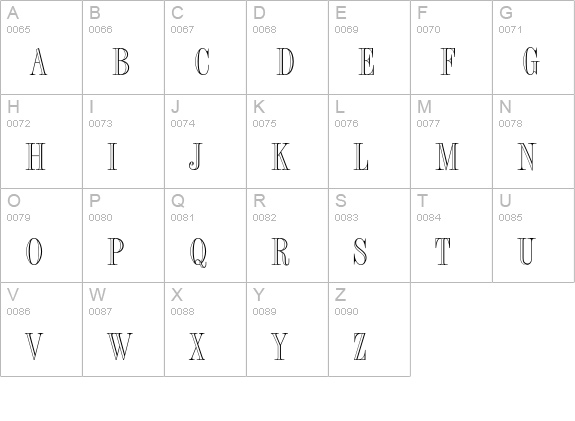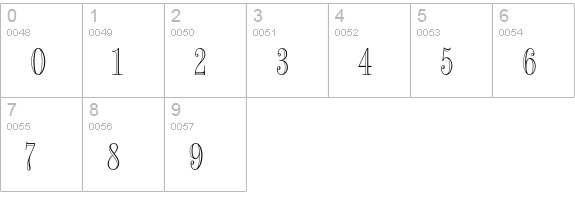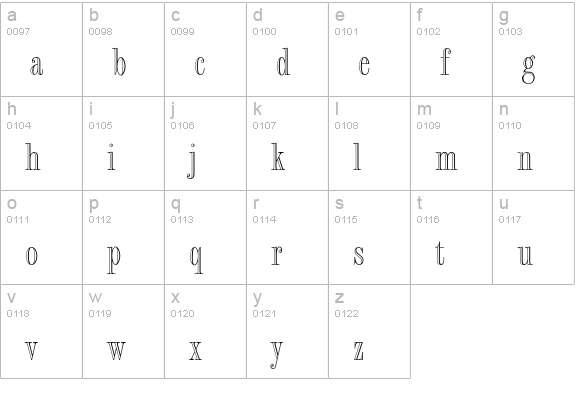
Fashion Engraved Std Font Details
Fashion Engraved Std font is a stunning display typeface that exudes elegance and sophistication. Its intricate, engraved design adds a touch of luxury to any project. The sharp lines and intricate details of this font make it perfect for fashion-related designs, luxury branding, and editorial layouts. What sets Fashion Engraved Std font apart is not only its stylish appearance but also the fact that it is available for free download at FontsMarket.com. This means that you can easily enhance your designs with this beautiful font without having to spend a penny. Whether you're working on a fashion magazine, a high-end brand identity, or a glamorous event invitation, Fashion Engraved Std font is sure to make a statement. Download Fashion Engraved Std font for free today at FontsMarket.com and add a touch of sophistication to your projects with this exquisite typeface.